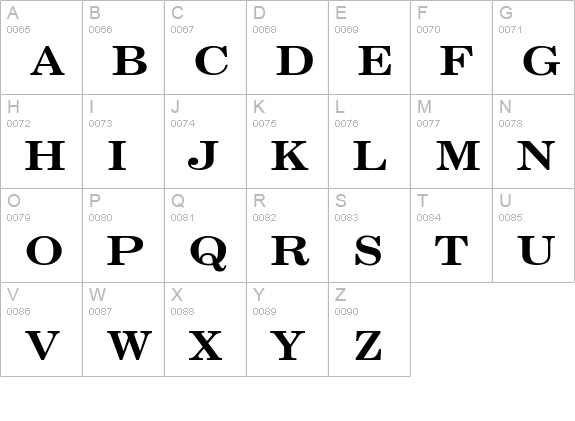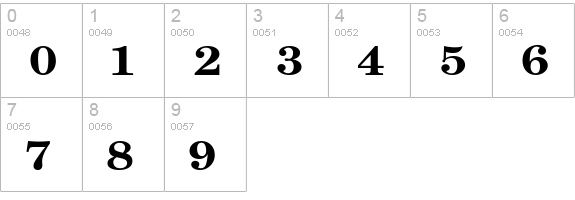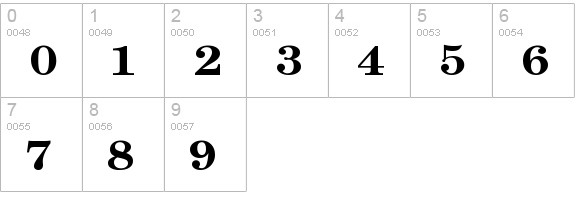
NewCenturySch 9 is a sleek and modern font that is perfect for a wide range of design projects. This font features clean lines and sharp edges, giving it a contemporary and professional look. With its unique style, NewCenturySch 9 is sure to make your designs stand out from the crowd. The best part? NewCenturySch 9 is completely free to download at FontsMarket.com. Whether you are working on a personal project or a commercial design, this font is a great choice. Its versatility and readability make it suitable for various uses, such as branding, advertising, packaging, and more. Don't miss out on the opportunity to enhance your designs with NewCenturySch 9. Download it for free today at FontsMarket.com and take your projects to the next level!